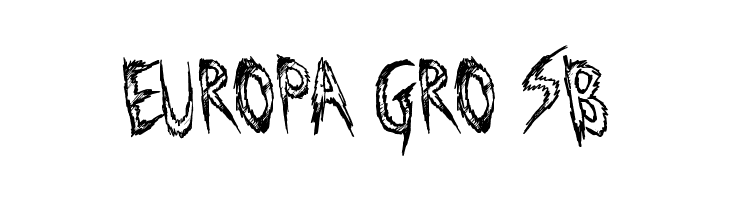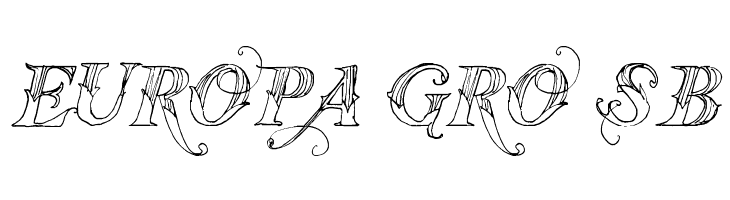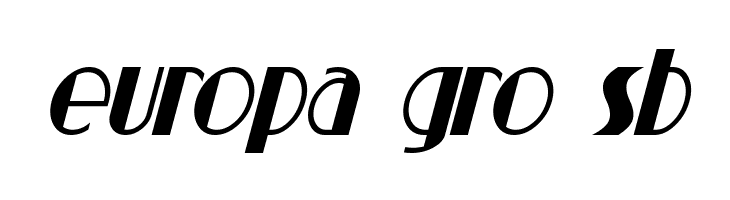
• Manhunter
A rugged, distressed font with jagged edges and an aggressive style.
• Admiration Pains
A decorative, calligraphic script font with intricate swirls and bold strokes.
• Cyberverse Italic
A sleek, futuristic italic font with sharp angles and smooth curves.
• Vtks Thanks You
An ornate, decorative font with elegant flourishes and calligraphic elements.
• Suchet Italic
A dynamic and elegant italic font with a stylish slant and moderate contrast.
• Suchet Bold Italic
• Suchet Bold
A bold, geometric font with high contrast and unique character shapes.
• Suchet
A bold, modern font with high contrast and geometric shapes.
• Wreckers Italic
A bold, angular italic font with a dynamic and aggressive style.
• Wreckers
A bold, geometric font with an industrial, modern aesthetic.